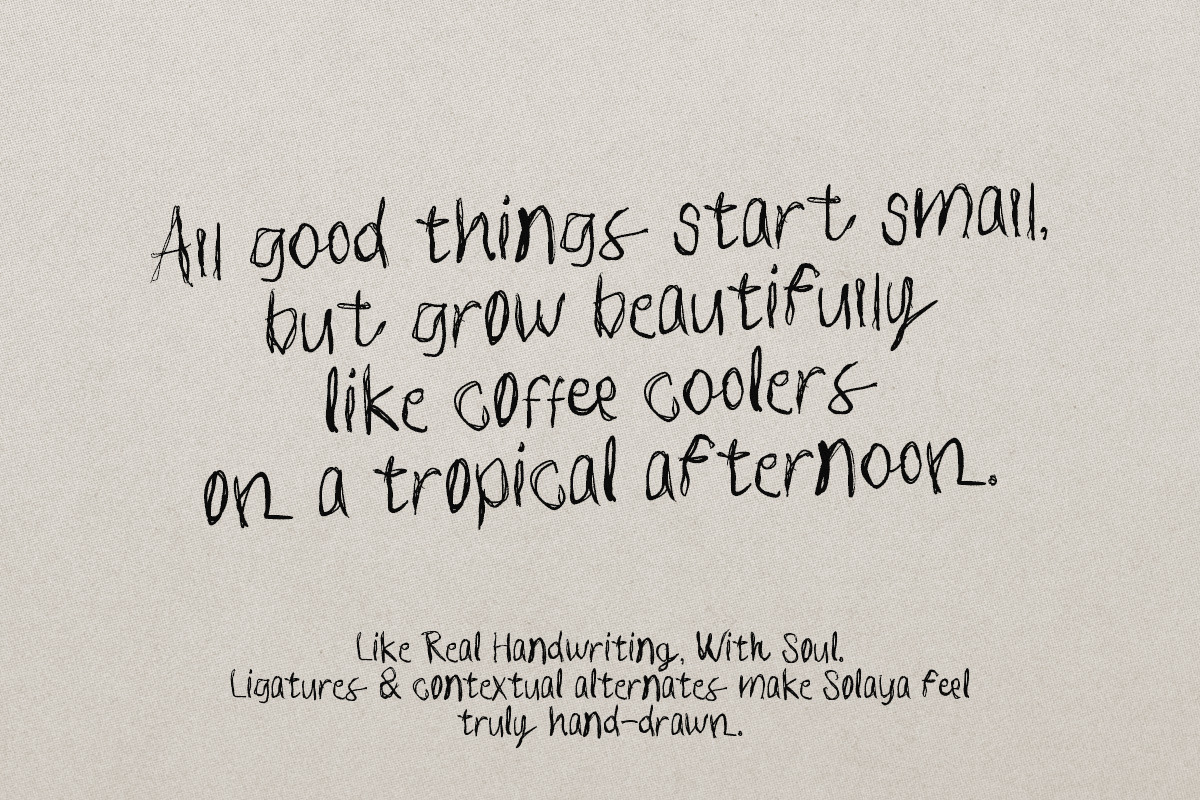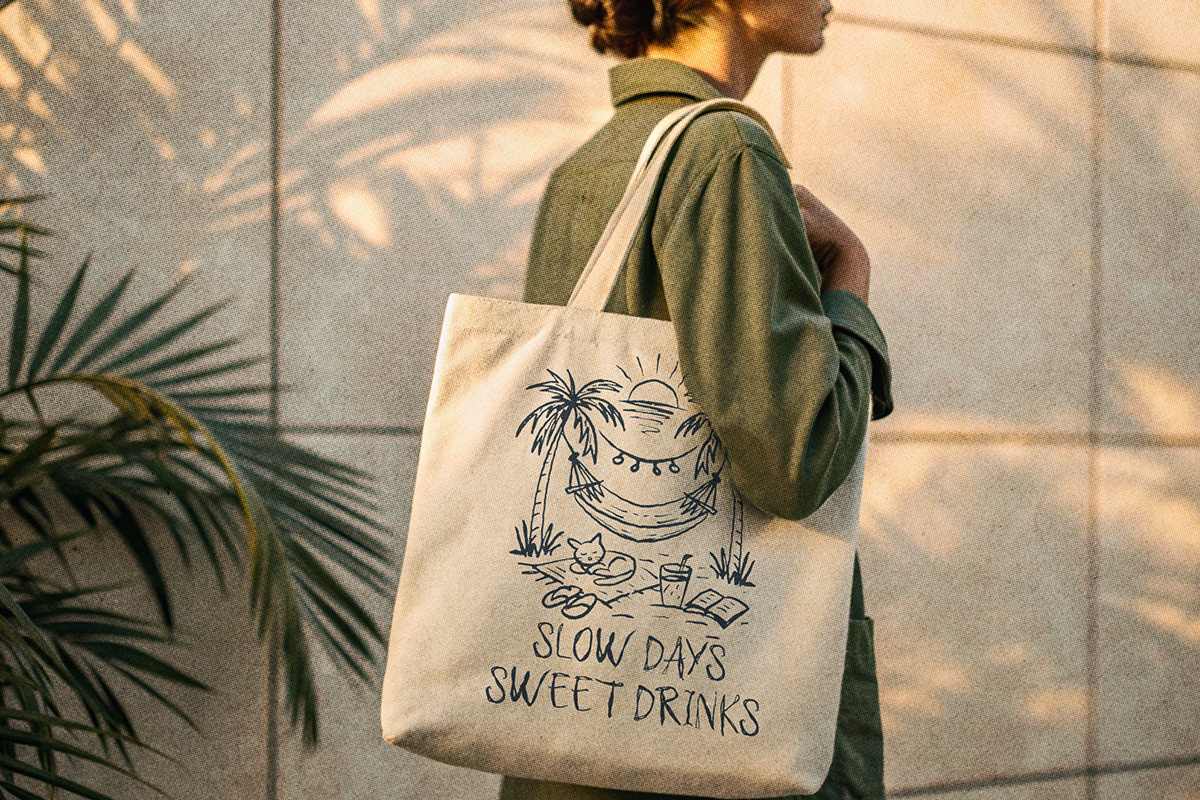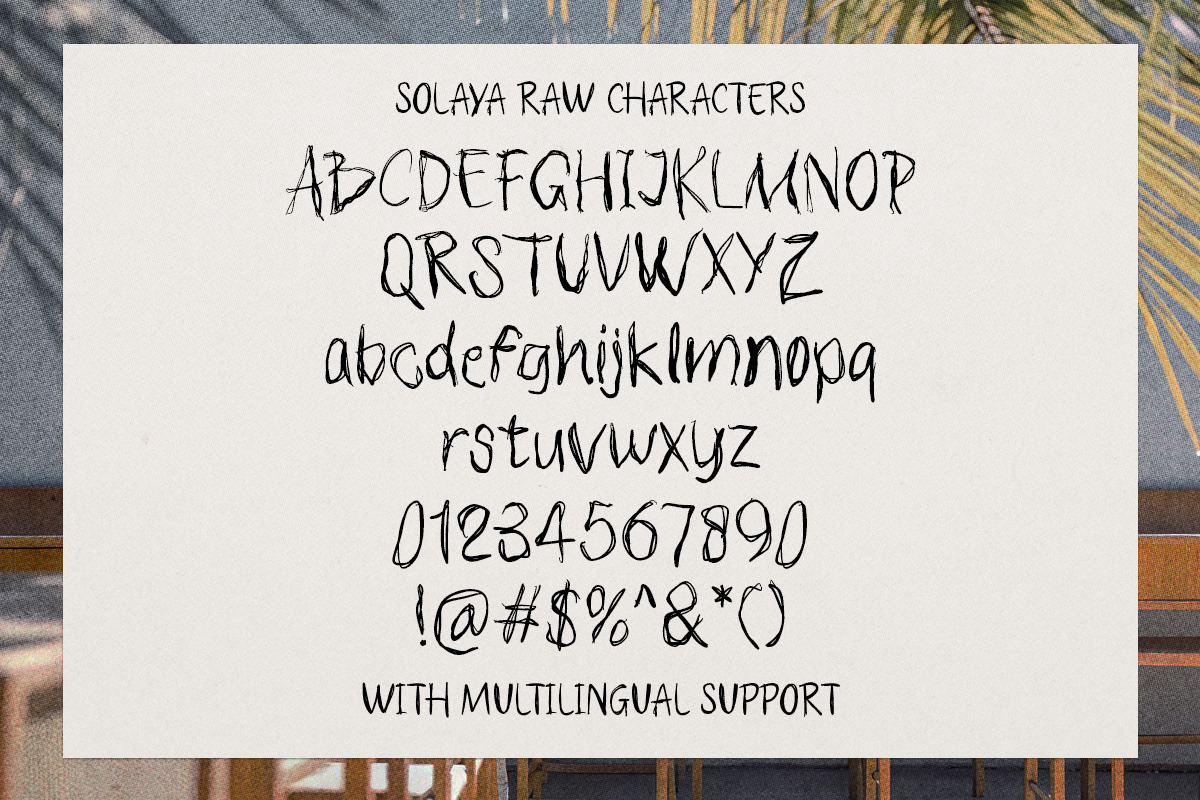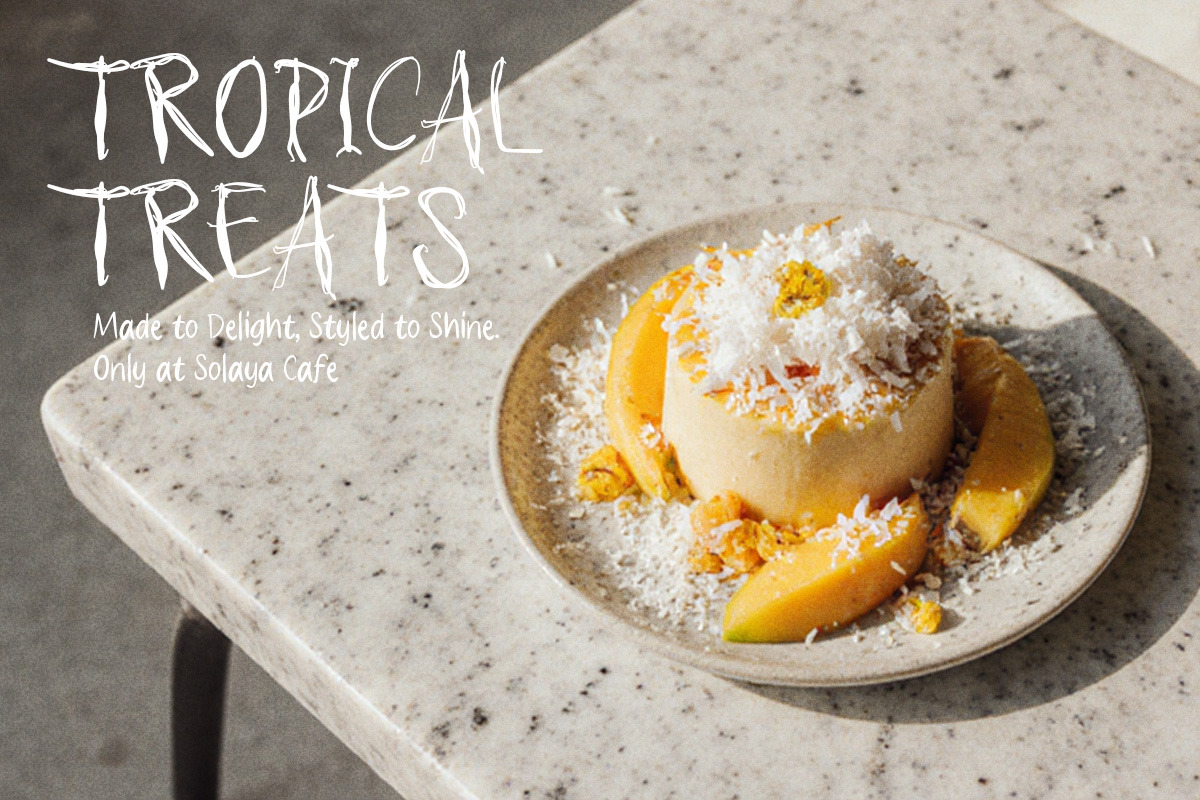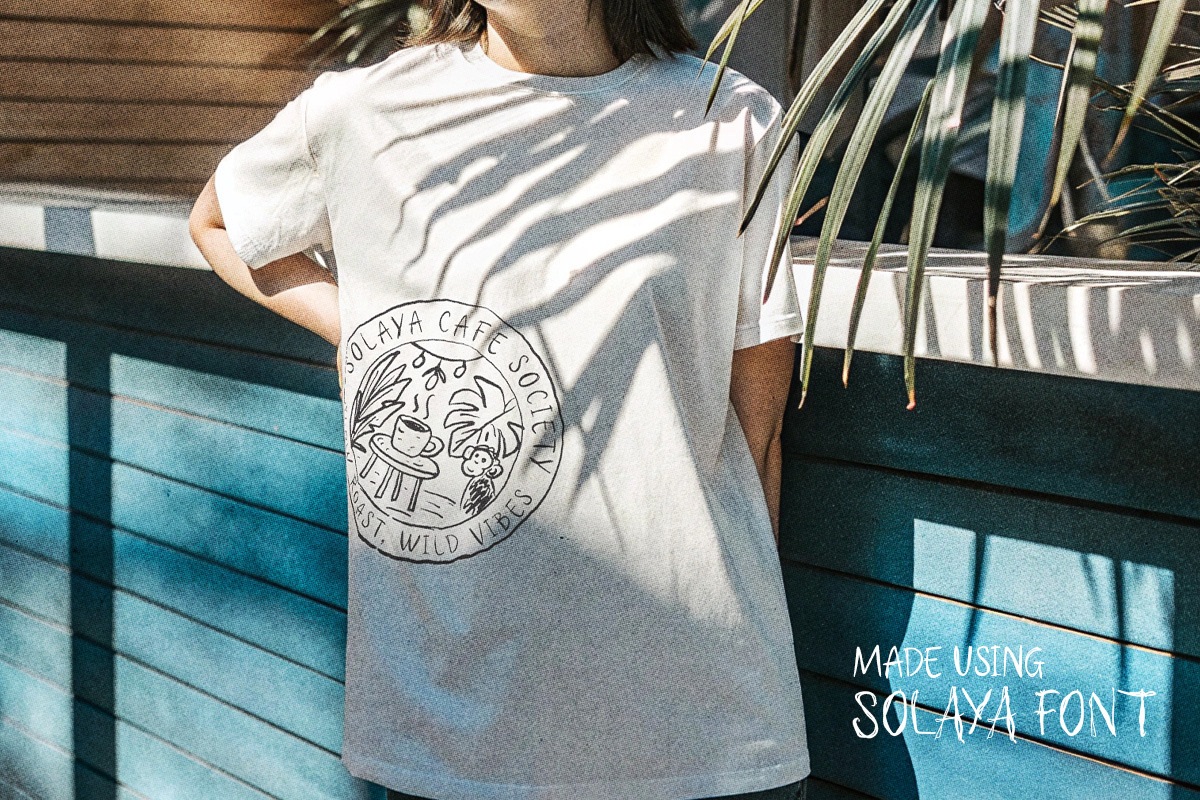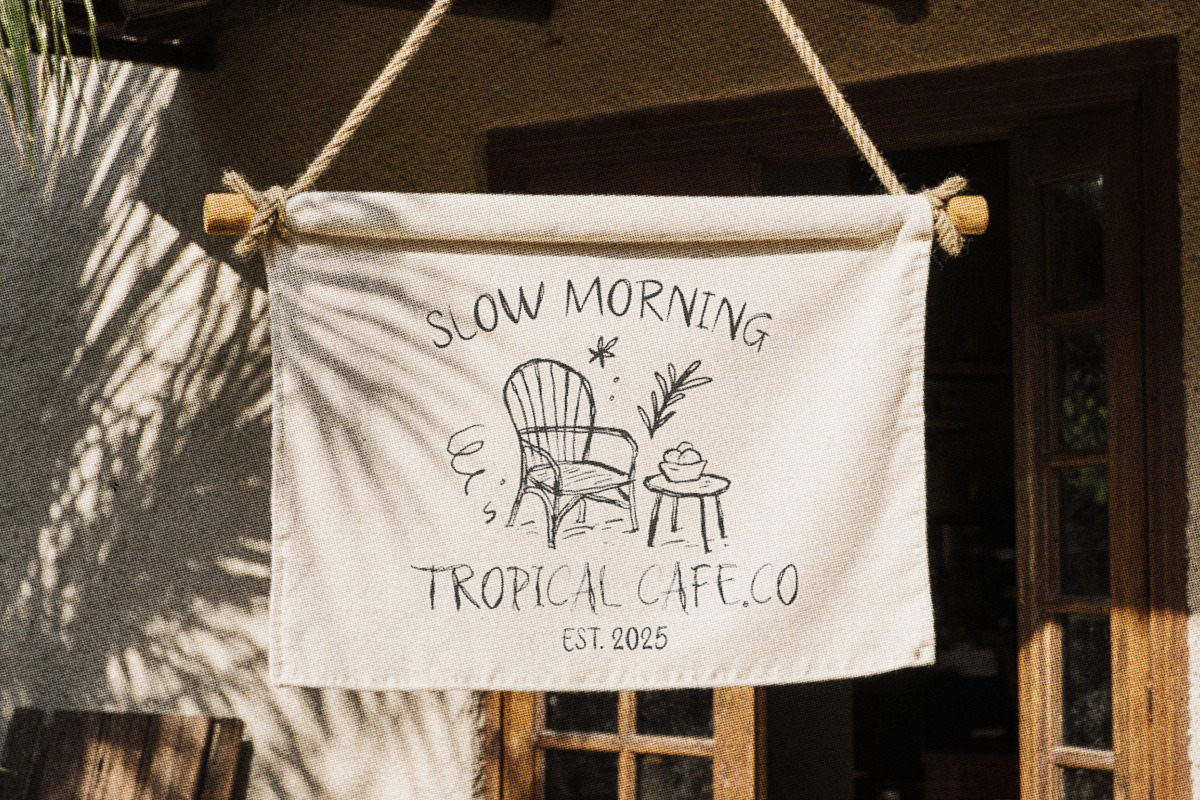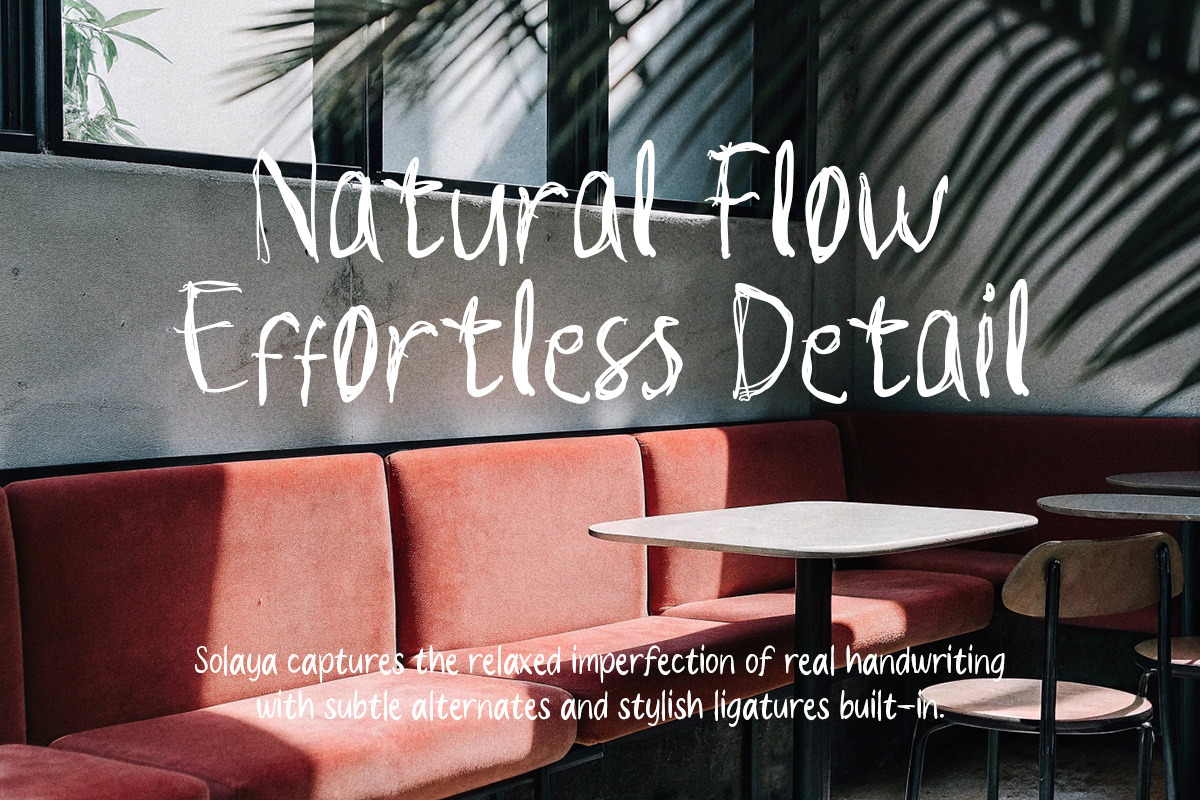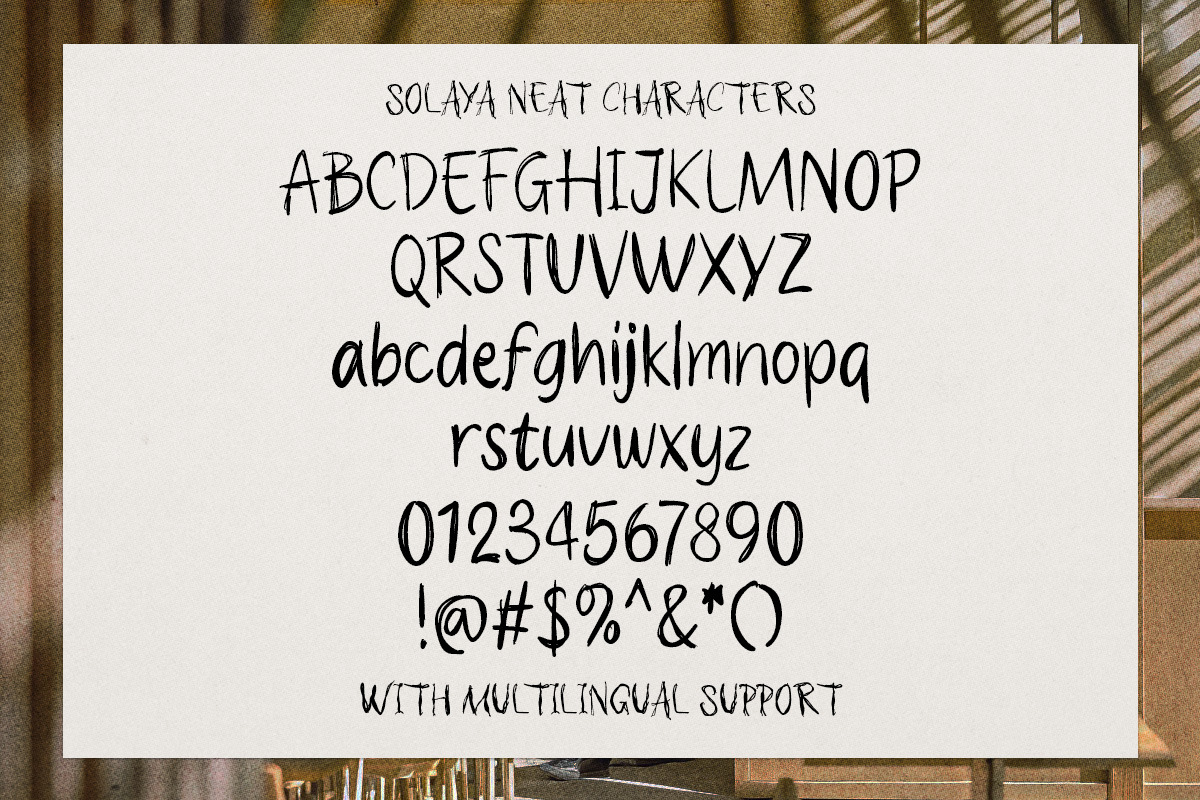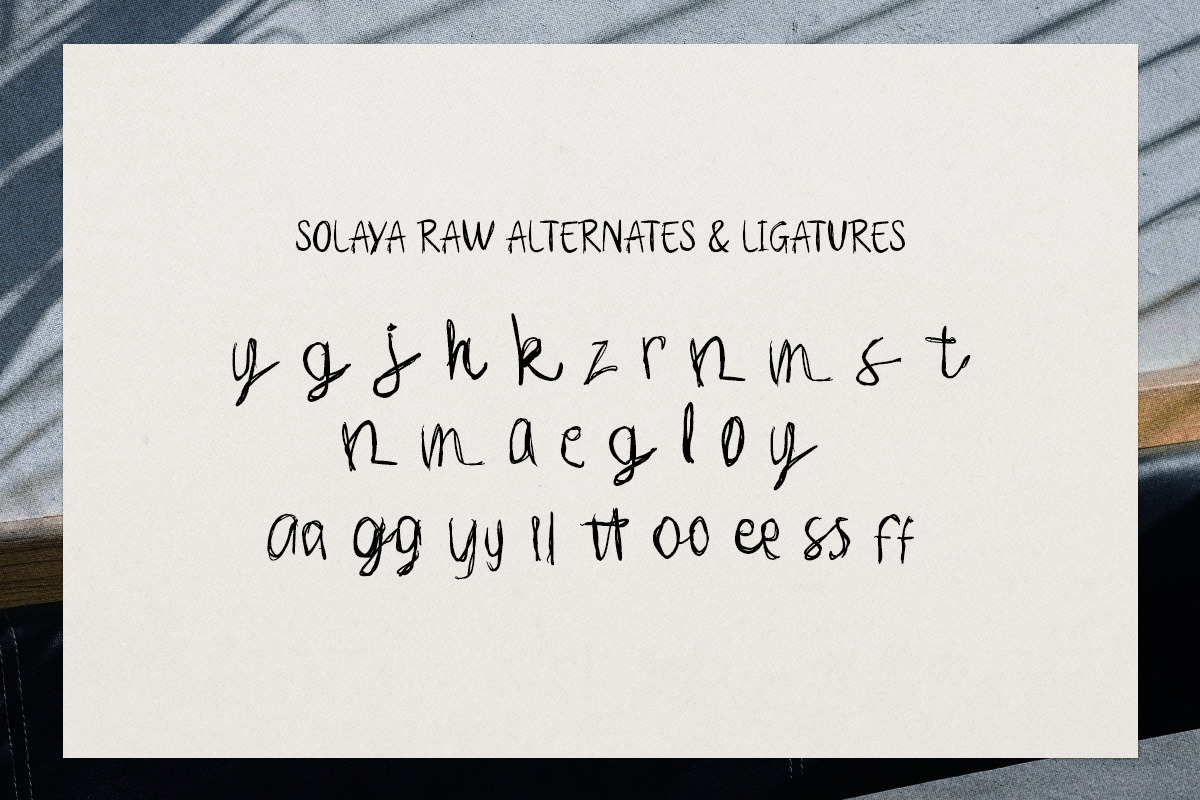
Solaya – Dual-Style Tropical Font
Solaya – A Dual-Style Tropical Font + Bonus Illustrations
Solaya is a handwritten font duo inspired by the warmth and rhythm of tropical cafés — where morning light filters through leaves, and coffee is meant to be savored, not rushed.
Crafted to bring that atmosphere into your design, Solaya blends the imperfect beauty of hand lettering with the calm elegance of soft curves. It’s perfect for cafés, branding, packaging, lifestyle visuals, and any creative work that calls for a relaxed, natural touch.
This font comes in two styles:
Solaya Raw – a loose, free-flowing handwritten look
Solaya Neat – a cleaner, more structured version with the same tropical soul